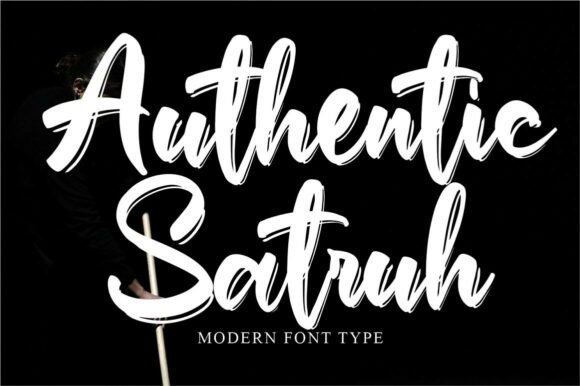
Authentic Satruh Font: Elevate Your Design with Expressive Handwritten Style
In the realm of typography, a font can make or break the visual appeal of a design project. For those seeking a unique and expressive handwritten style, Authentic Satruh Font stands out as an exceptional choice. This modern, versatile font is designed to bring a touch of personality to various creative endeavors, from logo design and social media content to movie and book titles.
The Essence of Authentic Satruh Font
Authentic Satruh is an expressive handwritten font that captures the essence of modern pen strokes, infusing fun and character into every letter. One of its defining features is the inclusion of little ligatures, alternate lowercase, and swashes, which add a dynamic and artistic flair to any text. These elements not only enhance the aesthetic appeal of your work but also provide a creative outlet for designers looking to push the boundaries of traditional typography.
Key Features of Authentic Satruh Font
- Expressive Handwritten Style: Authentic Satruh boasts a fluid, natural look that mimics the strokes of a pen, making it perfect for projects that require a personal touch.
- Modern Pen Strokes: The font incorporates contemporary pen strokes, giving it a fresh and current feel that will make your designs stand out.
- Fun Characters and Ligatures: With its set of fun characters and ligatures, Authentic Satruh allows for a high degree of customization and creativity in text design.
- Alternate Lowercase and Swashes: The availability of alternate lowercase letters and swashes means you can vary your text’s appearance, adding elegance and sophistication where needed.
- Multilingual Support: In an increasingly globalized world, Authentic Satruh’s support for multiple languages ensures that your design can reach and resonate with a broader audience.
Applications of Authentic Satruh Font
The versatility of Authentic Satruh Font makes it suitable for a wide range of applications. Here are some areas where this font truly shines:
Logo Design
A logo is often the first impression a brand makes on its audience. With Authentic Satruh, designers can craft unique, memorable logos that reflect a brand’s personality and values. The font’s expressive nature allows for the creation of logos that are not just visually appealing but also tell a story.
Social Media and Digital Content
In the digital age, engaging content is key to capturing the audience’s attention. Authentic Satruh’s modern and fun characteristics make it an excellent choice for social media posts, blog headers, and digital advertising, helping your content stand out in a crowded online space.
Movie and Book Titles
For creative projects like movie titles and book covers, the font used can significantly impact the audience’s perception. Authentic Satruh’s elegant yet expressive qualities make it perfect for titles, adding a layer of sophistication and allure to any project.
Short Texts and Long Letter Texts
Whether you’re designing a short text for a poster or crafting a lengthy letter, Authentic Satruh maintains its readability and aesthetic appeal across various text lengths. This makes it an excellent choice for both headlines and body text.
Secondary Text Font with Sans or Serif
Authentic Satruh also works beautifully as a secondary font when paired with sans or serif fonts. This versatility allows designers to add a touch of personality to their work without compromising on readability or style.
Why Choose Authentic Satruh Font?
In a market flooded with fonts, Authentic Satruh stands out for several reasons:
Uniqueness
Its expressive handwritten style, combined with modern pen strokes and artistic ligatures, offers a fresh alternative to more traditional fonts.
Versatility
From logo design to long texts, and from digital content to print materials, Authentic Satruh adapts seamlessly to various design needs.
Multilingual Support
In today’s global market, the ability to communicate across languages is invaluable. Authentic Satruh’s multilingual support ensures your designs can connect with a diverse audience.
Authentic Satruh Font offers a unique blend of expressiveness, versatility, and creativity, making it an invaluable asset for designers looking to elevate their projects. Whether you’re working on a logo, social media content, or a book title, this font provides the tools to create visually stunning and engaging designs. With its wide range of applications and benefits, Authentic Satruh Font is poised to become a go-to choice for designers worldwide seeking to add a personal and artistic touch to their work.
Embrace the creative possibilities with Authentic Satruh Font and discover how this expressive handwritten font can transform your designs, making them more captivating and memorable.